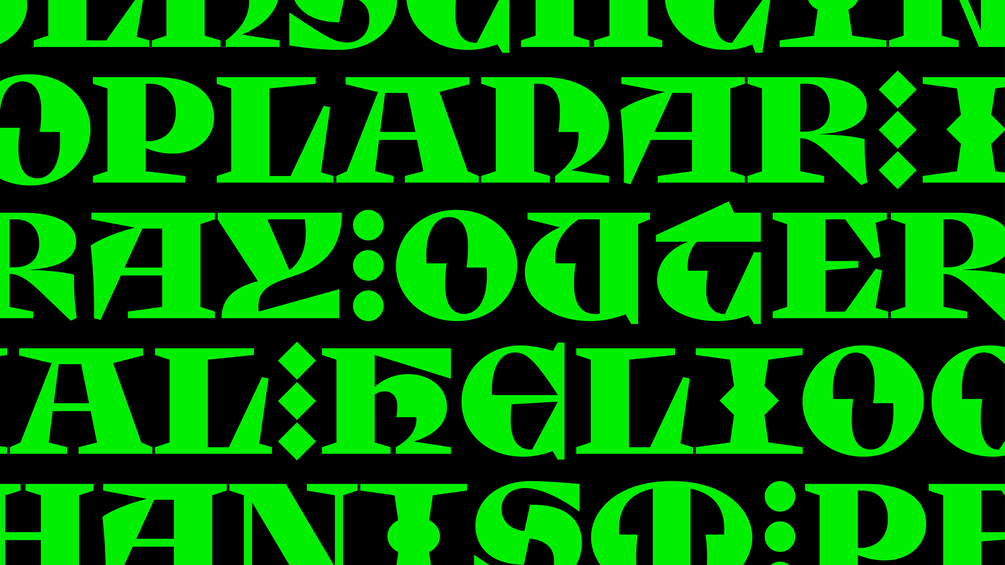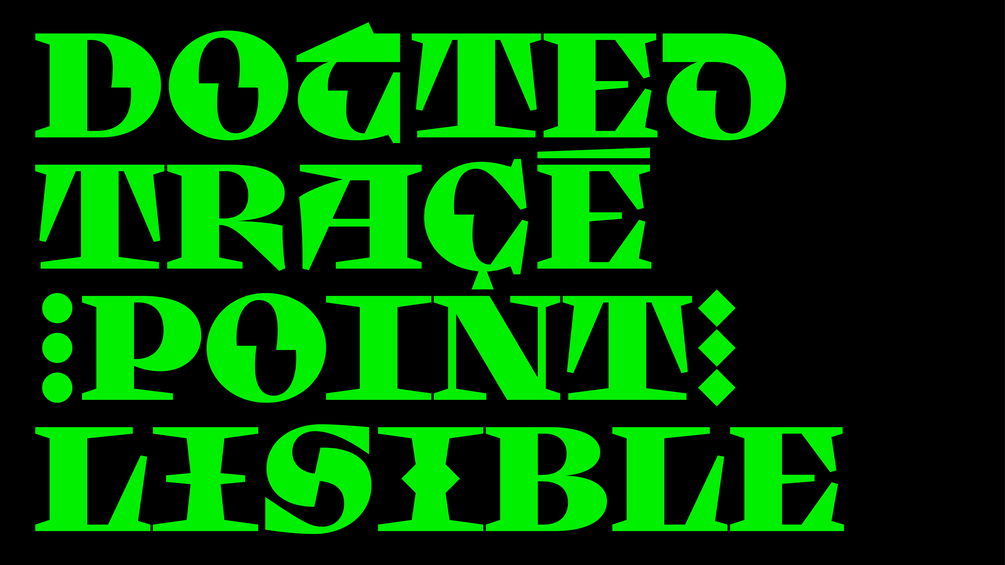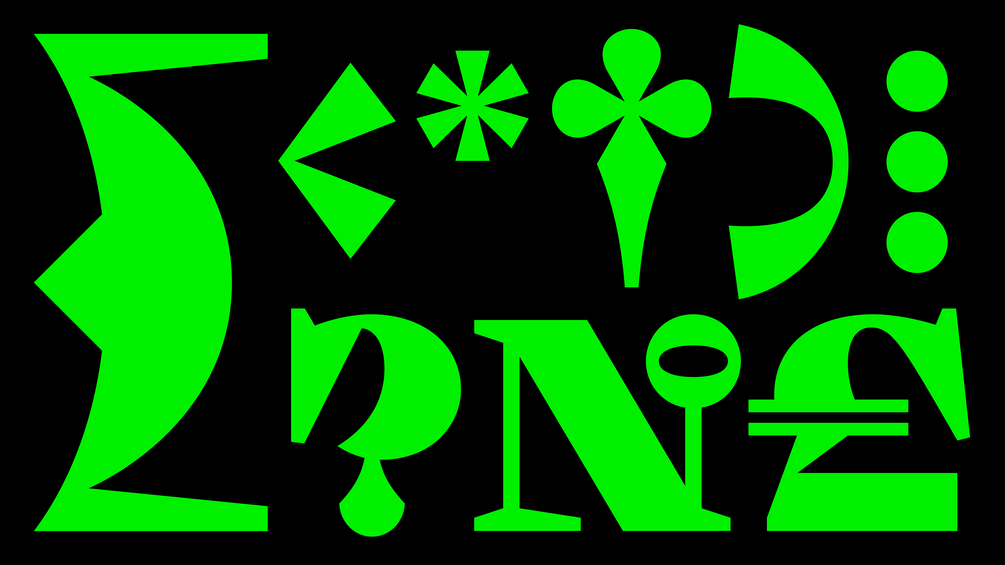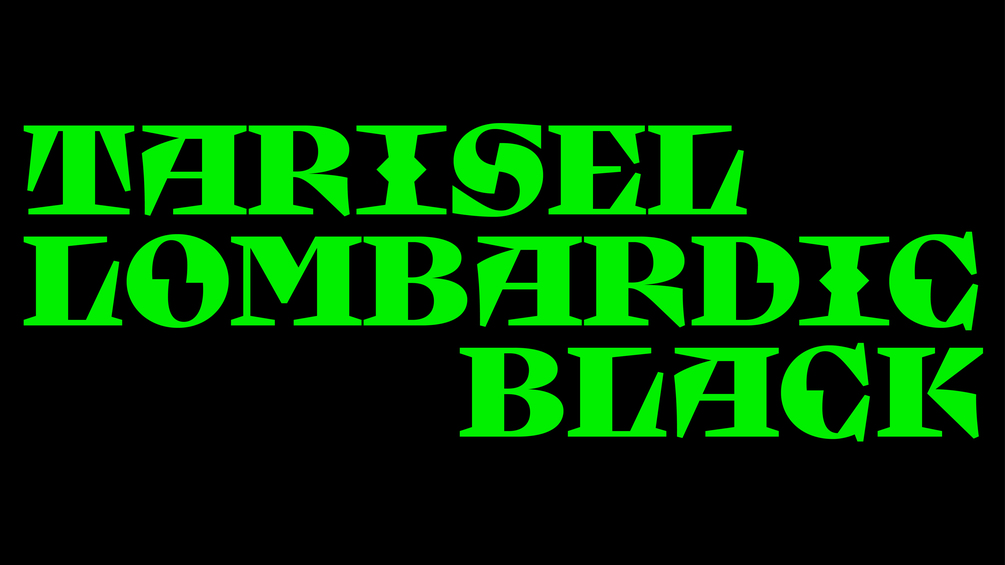
Tarisel Lombardic Black
Tarisel Lombardic is a set of hybrid-gothic display capitals that blends Gothic lettering with a contemporary attitude. More than just a digitization of traditional versals, Tarisel Lombardic is a structural paradox whose synthetic shapes shift into a bestiary of stylistic alternates.
Version 1.2
• Deeper cuts on round letters
• New brackets: ()[]{}
• New guillemets: ‹›«»
• Symbols with more contrast: #%°№
• Updated Å and Ç